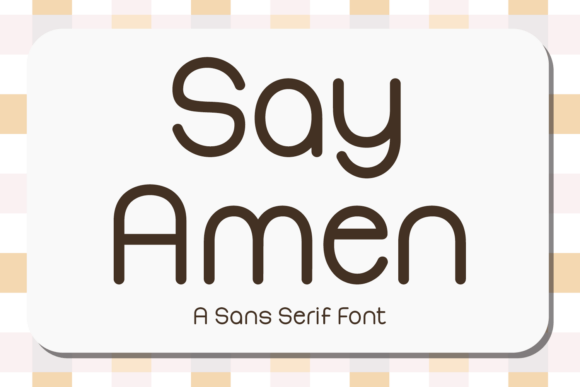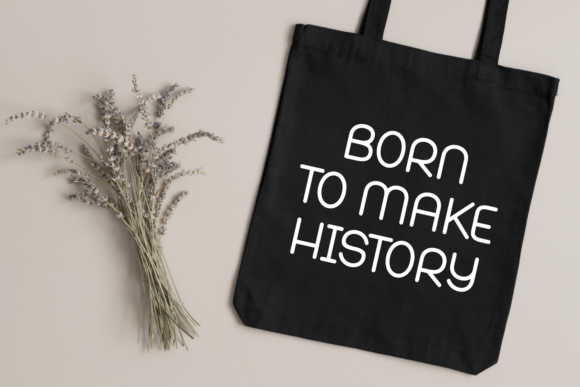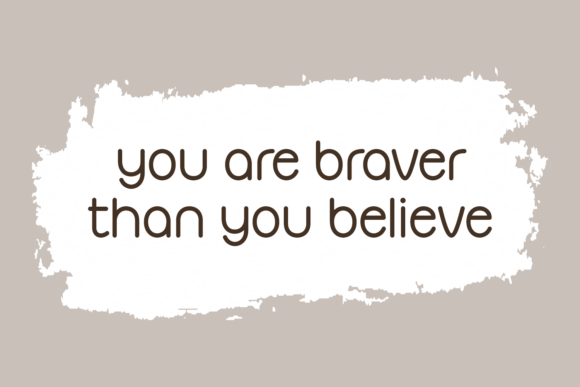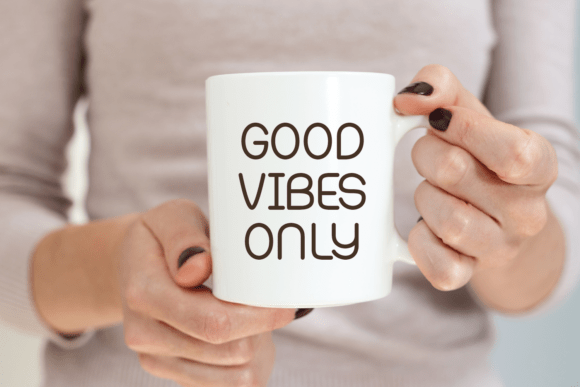
Say Amen Font: Modern Sans Serif for Cricut & DIY Projects!
About the Say Amen Font
Introducing the Say Amen Font, a beautifully crafted typeface designed to elevate your creative projects. Immerse yourself in the grace and sophistication of the ‘Say Amen’ font. This sans serif wonder serves as an epitome of elegance, a touchstone for branding projects and an unbeatable choice for invitations. Its modern, minimalistic design draws inspiration from circuit patterns, whilst maintaining a stylish and handwritten appeal.
It’s a classy testament to Procreate fonts that strikes a perfect balance between luxury and simplicity. Whether you are designing a high-end magazine or crafting an iconic logo, ‘Say Amen’ is an ideal companion for bold design aesthetics. Indulge in the versatile charm of this font and elevate your projects to new creative heights.